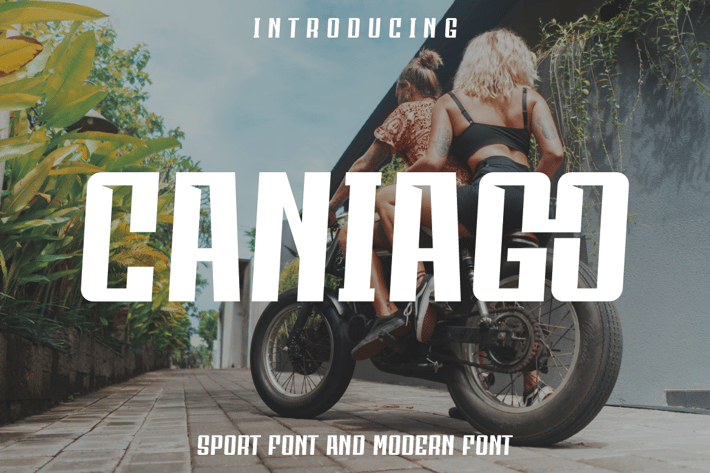
Caniago - Sport Font and Modern Font
Caniago - Sport Font and Modern Font Font is unique . Ready to use for your design like labeling, movie sceen, poster, movie title, gigs, album covers, logos, and much more.